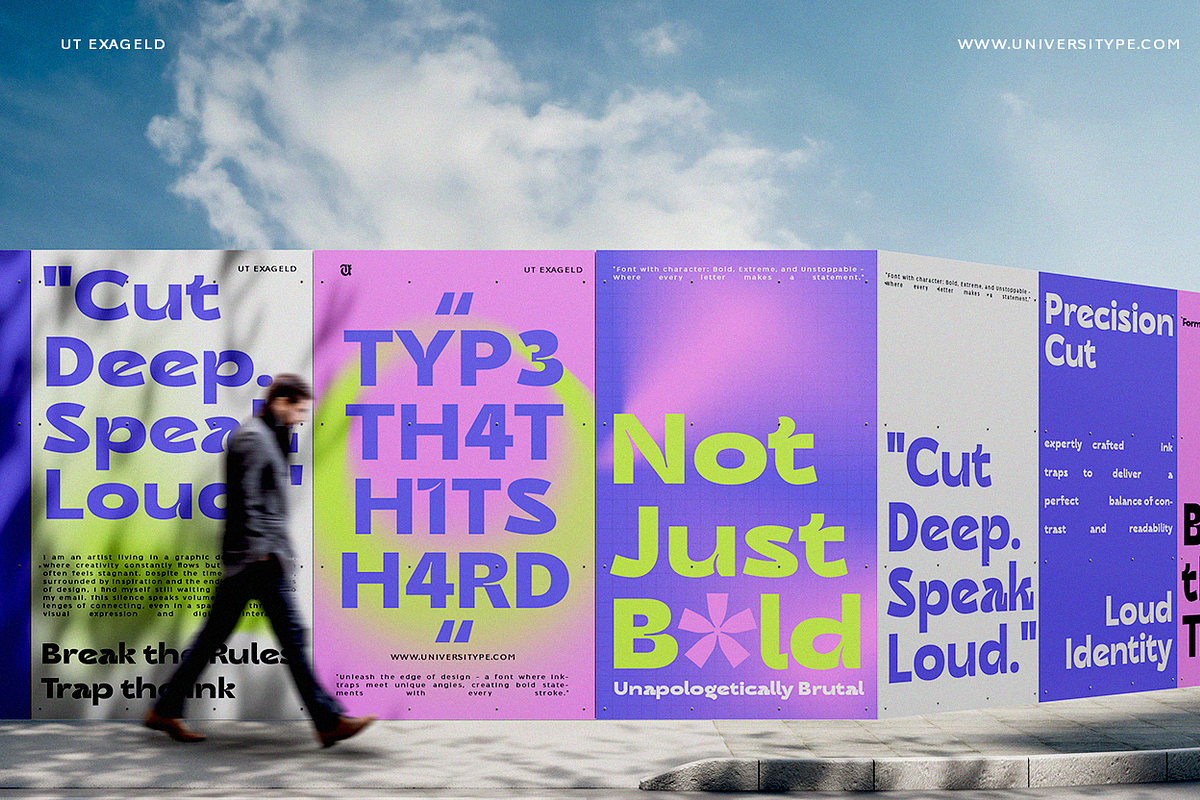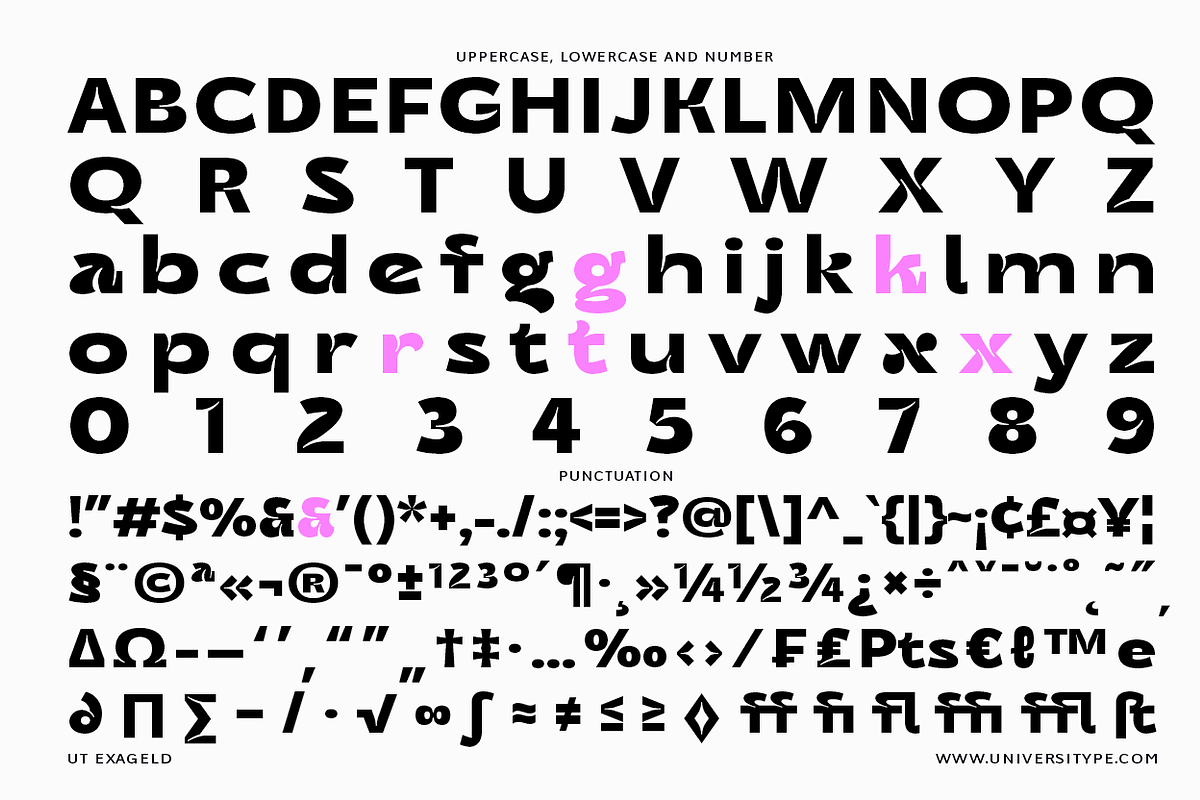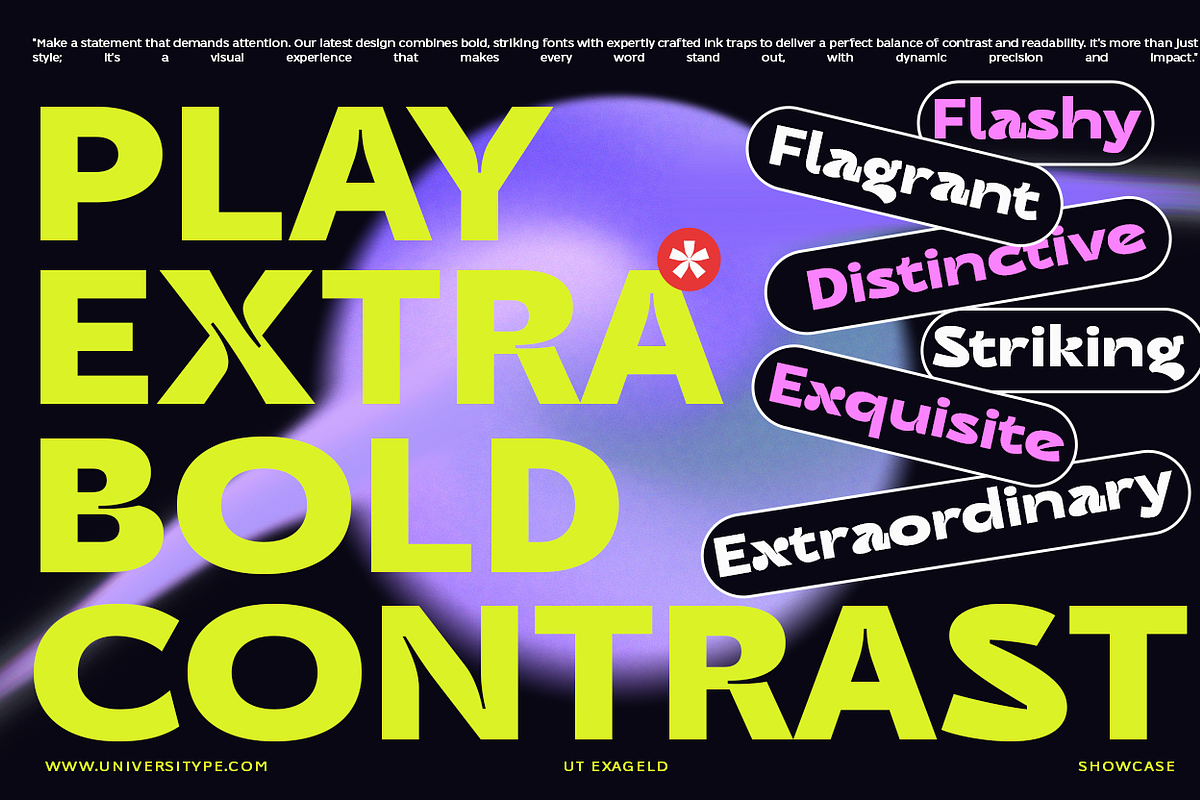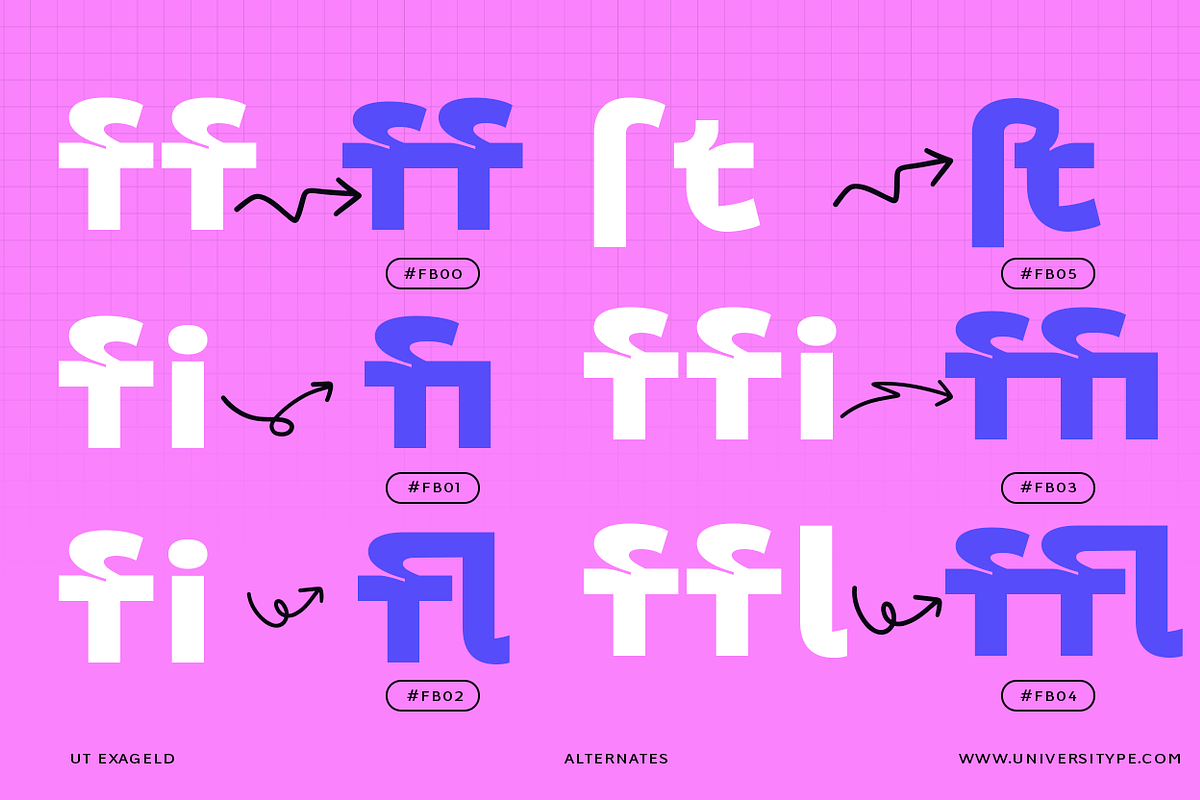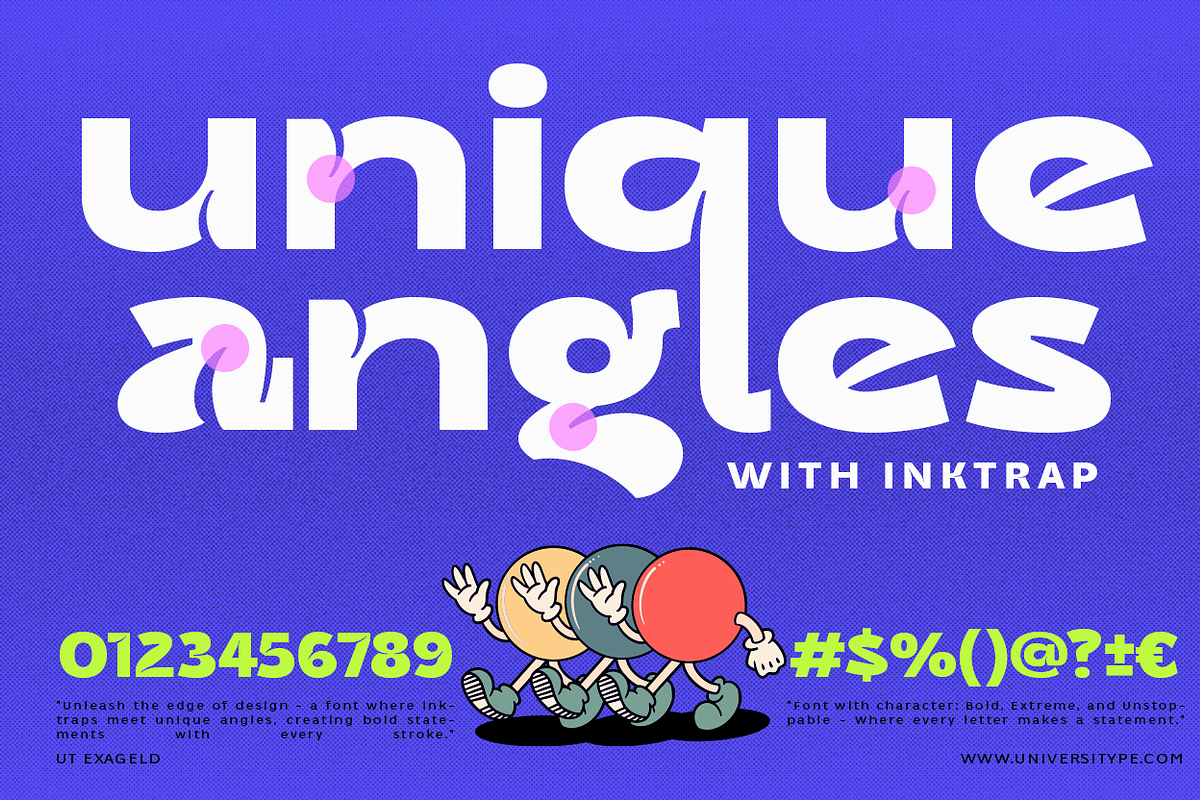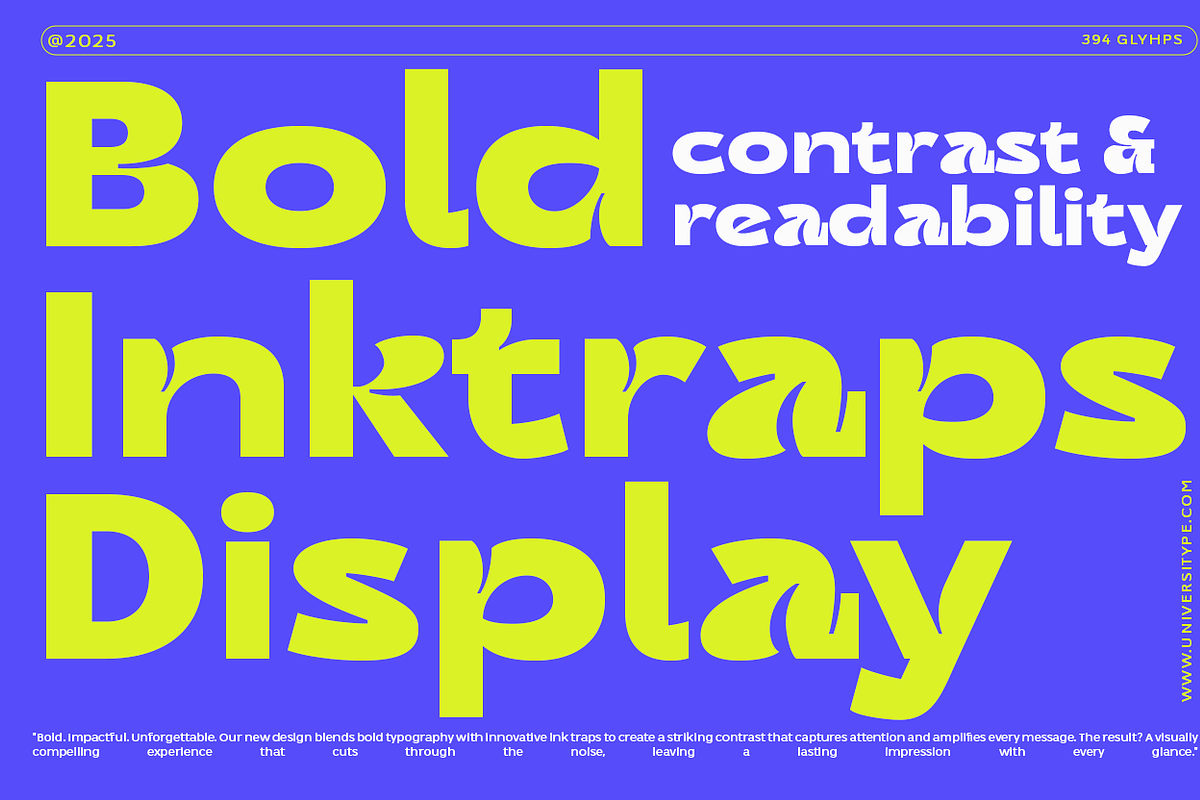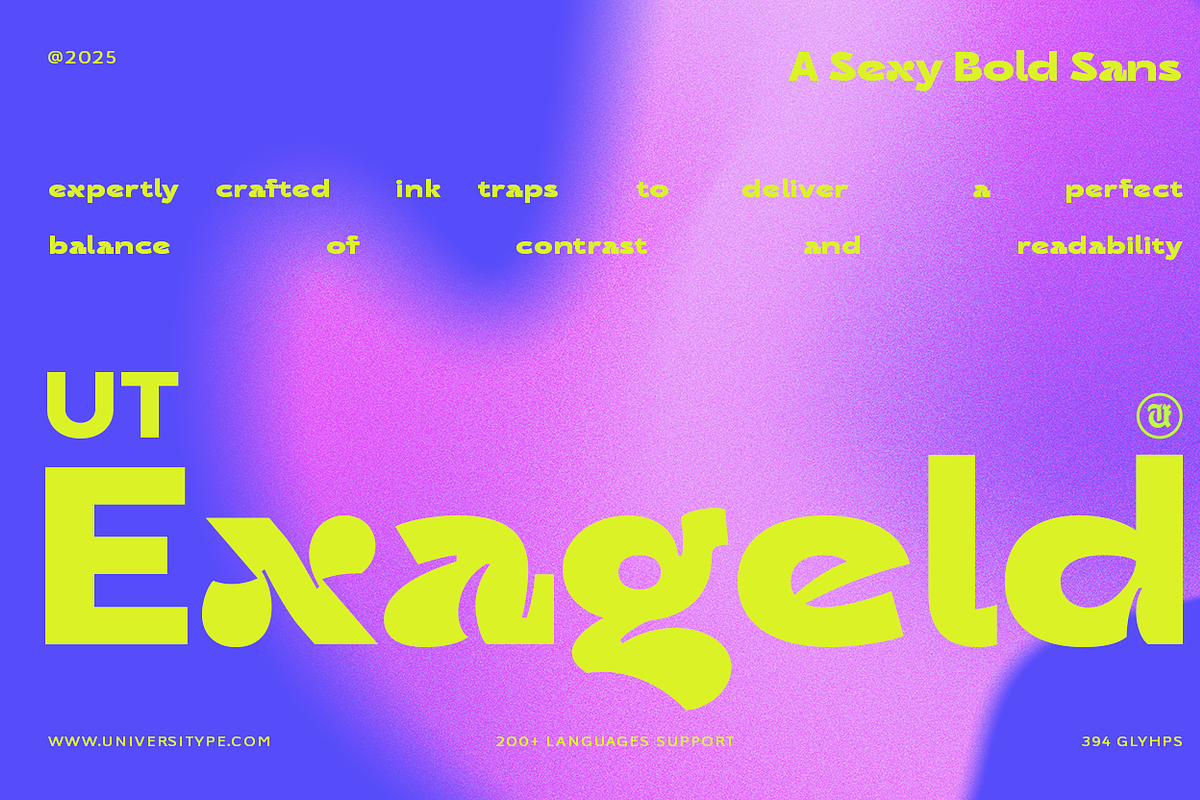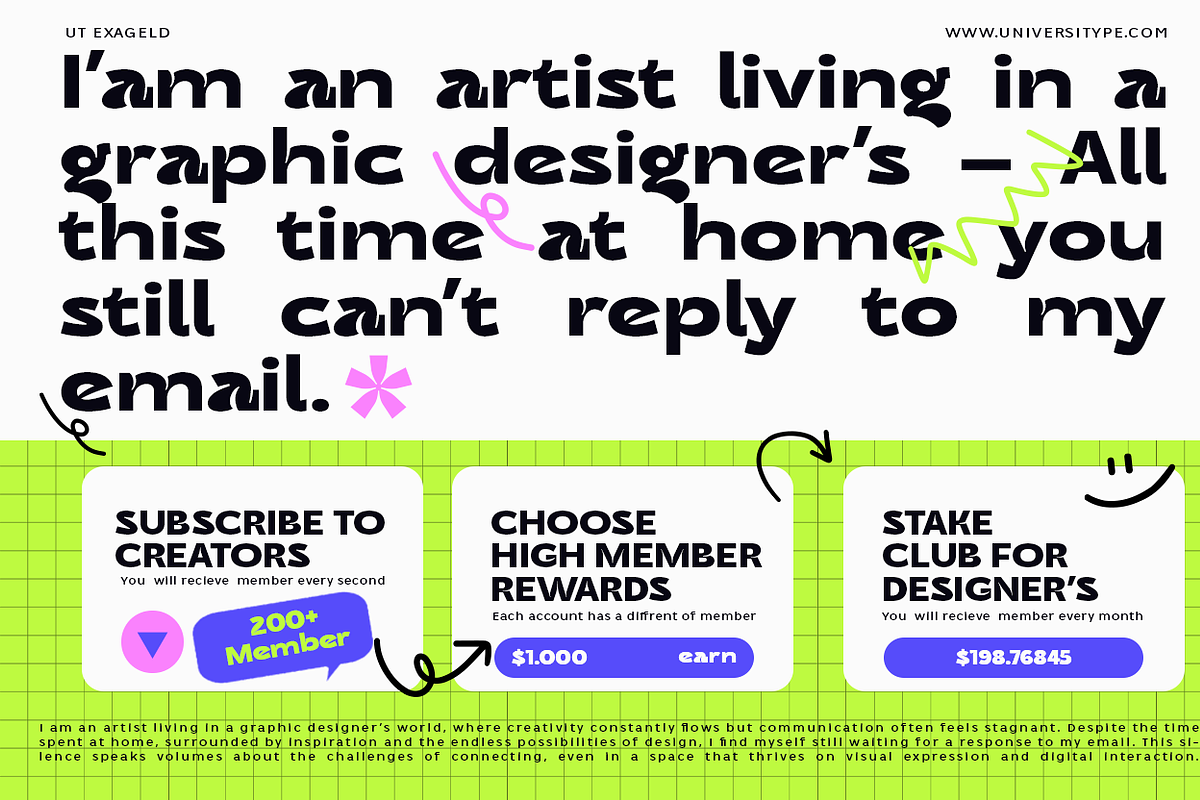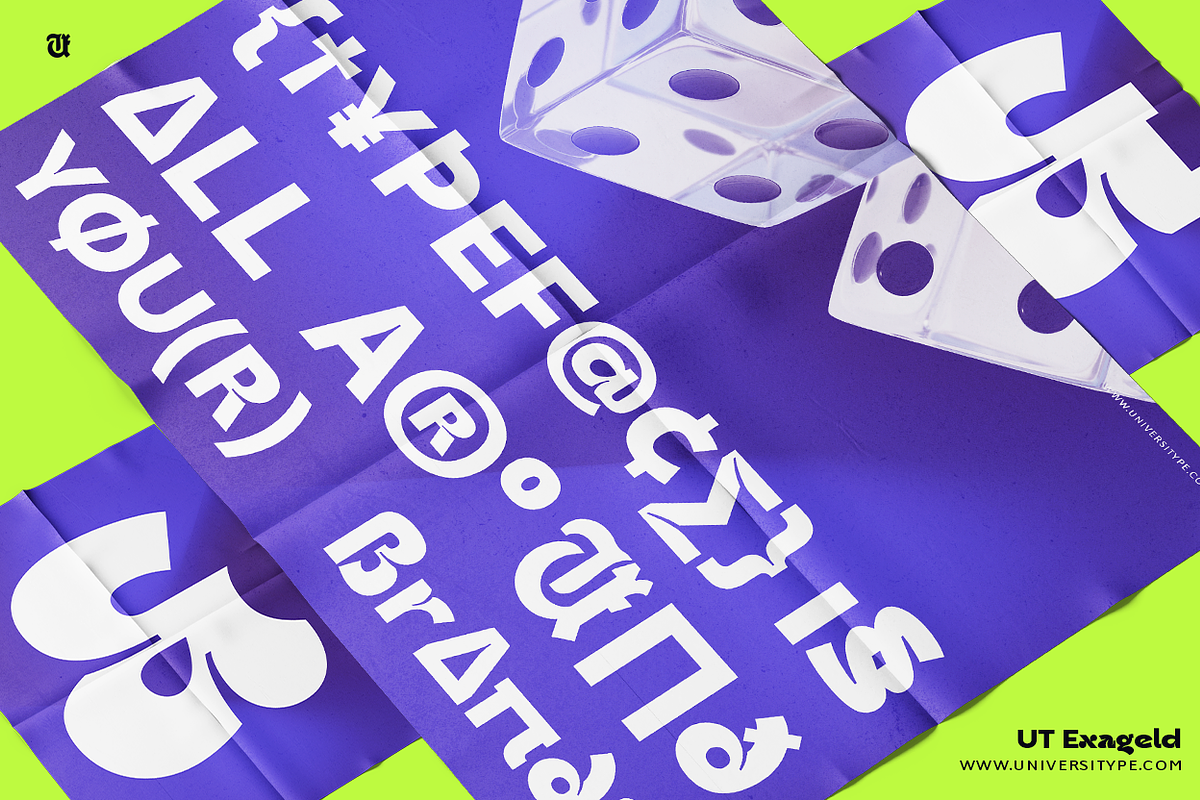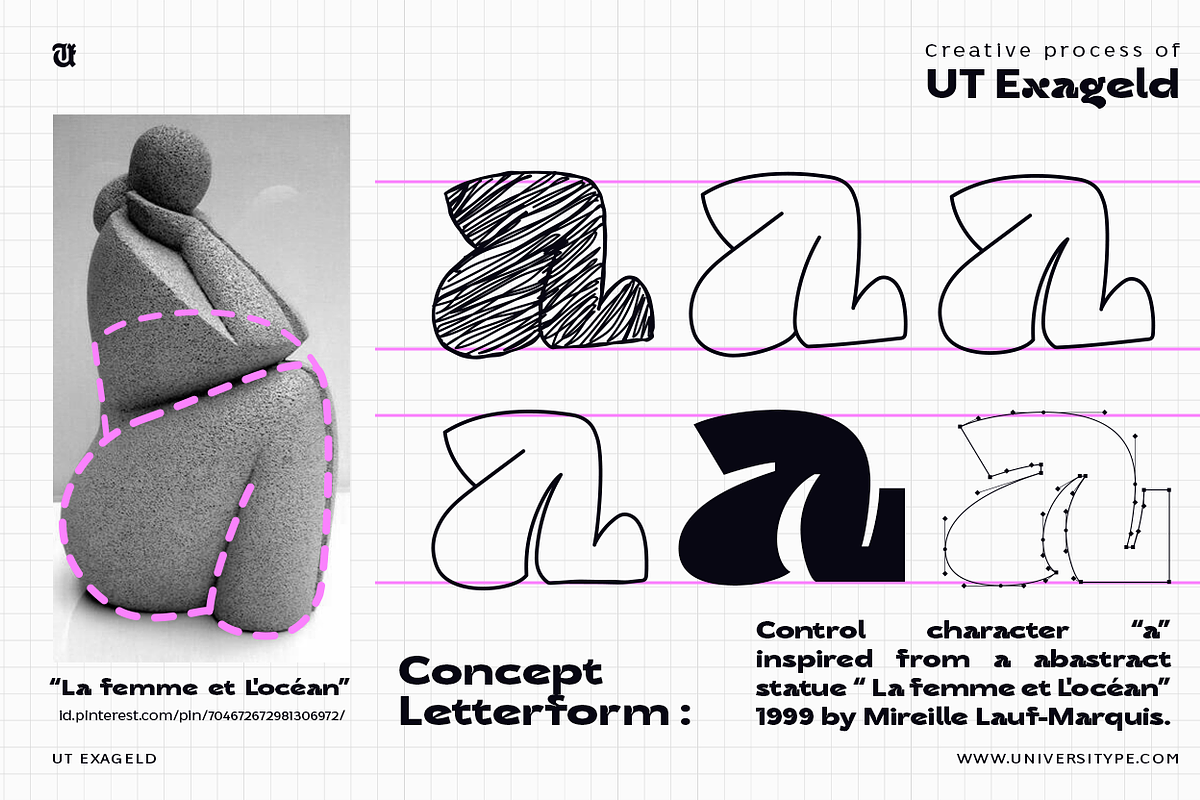
UT Exageld - A Bold Sexy Sans Serif
UT Exageld is a bold, sexy, and versatile sans-serif font that is perfect for designers looking to make a strong visual impact. With its expertly crafted ink traps, UT Exageld delivers a perfect balance of contrast and readability, making it suitable for a wide range of applications.
This font is ideal for graphic designers, typographers, and creative professionals who are looking for a modern and striking typeface to use in their projects. It is particularly well-suited for those working in branding, advertising, and editorial design.
- Stylish and Impactful: UT Exageld features a bold and sexy design that is sure to catch the eye.
- Language Support: With support for over 200 languages, UT Exageld is versatile and suitable for a global audience.
- Alternate Characters: The font comes with multiple alternate characters for letters such as “f,” “t,” “i,” and “l,” allowing for greater creativity and customization.
- Readability and Contrast: Designed with ink traps, UT Exageld ensures high contrast and readability.
- Versatile Applications: Perfect for headlines, posters, branding, and any design project that requires a bold and impactful typeface.
Inspiration Behind the UT Exageld Design:
- UT Exageld draws inspiration from modern, bold, and sexy aesthetics popular in contemporary design. It is designed to make a statement and stand out in a crowded visual landscape.
- The design process includes inspiration from abstract art, such as the statue “La femme et l’océan” by Mireille Lauf-Marquis, to create unique angles and bold statements.
Usage Suggestions:
- Headlines: Use UT Exageld to create eye-catching headlines that grab attention.
- Posters: Utilize the font’s bold design to create impactful posters that make a statement.
- Branding: Add a unique touch to your brand identity with this stylish and modern font.
- Digital Media: Ensure your online content is as impactful as your print materials with UT Exageld’s high readability.
UT Exageld is a bold, sexy, and versatile sans-serif font that is perfect for adding a touch of modernity and impact to your designs. With its wide range of features, including language support, alternate characters, and high readability, it is a versatile and professional choice for any design project. Whether you are creating headlines, posters, or branding materials, UT Exageld is sure to make a statement.